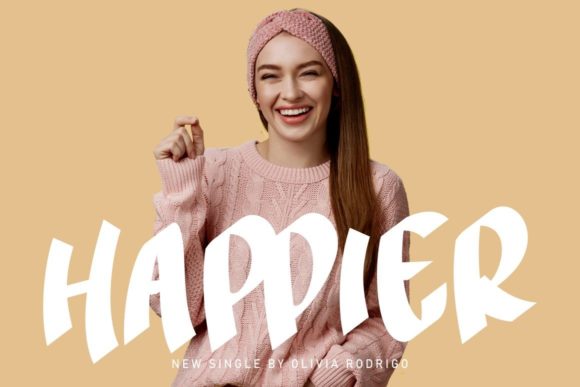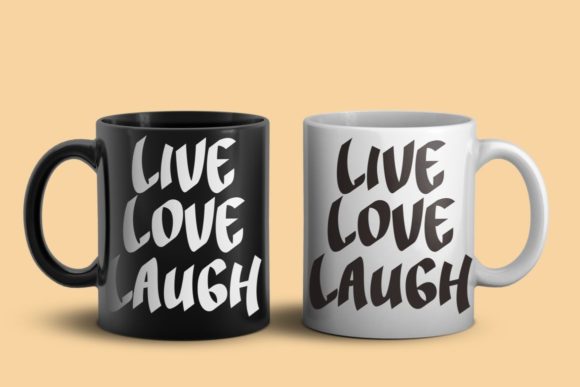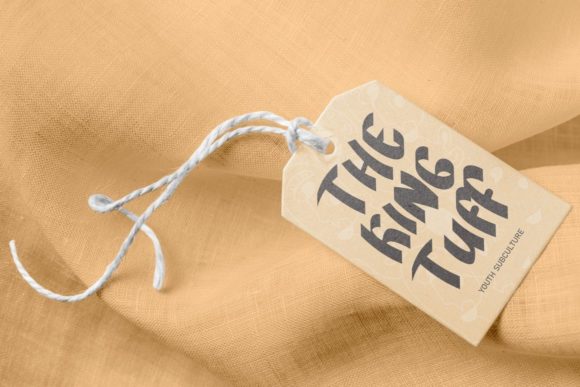
Introducing Classic Writer: The Ultimate Display Font for Creative Projects
Are you a designer, craftsperson, or creative looking for a font that can elevate your projects to the next level? Look no further than Classic Writer, a cool and trendy display font that’s perfect for a wide range of applications. With its unique blend of style and versatility, Classic Writer is a wonderful asset to add to your font library.
The Characteristics of Classic Writer
So, what makes Classic Writer so special? For starters, its classic design gives it a timeless feel that’s hard to resist. The font features clean lines, elegant curves, and a sophisticated aesthetic that’s perfect for creating visually appealing text. Whether you’re working on a logo, a poster, a website, or any other creative project, Classic Writer is sure to make a lasting impression.
Why Classic Writer is a Great Addition to Your Font Library
One of the best things about Classic Writer is its incredible versatility. This font can be used for a wide range of topics and themes, from vintage-inspired designs to modern and trendy projects. Whether you’re creating a rustic-themed wedding invitation or a sleek and modern website, Classic Writer is the perfect choice.
Another advantage of Classic Writer is its ability to add a touch of elegance and sophistication to any design. The font’s classic design ensures that it will never go out of style, making it a great investment for designers and crafters who want to stay ahead of the curve.
How to Use Classic Writer in Your Designs
So, how can you use Classic Writer in your designs? The possibilities are endless! Here are a few ideas to get you started:
- Logos and branding: Use Classic Writer to create a memorable and stylish logo that will help your brand stand out.
- Posters and flyers: Add a touch of elegance and sophistication to your posters and flyers with Classic Writer.
- Websites and blogs: Use Classic Writer to create a visually appealing website or blog that’s sure to impress your visitors.
- Social media graphics: Create eye-catching social media graphics with Classic Writer that will help you stand out in a crowded online space.
- Stationery and invitations: Use Classic Writer to create beautiful stationery and invitations that will make a lasting impression.
The Benefits of Using Classic Writer
So, what are the benefits of using Classic Writer in your designs? Here are just a few:
- Unique and eye-catching: Classic Writer is a unique and eye-catching font that’s sure to grab attention.
- Versatile: This font can be used for a wide range of topics and themes, making it a great addition to your font library.
- Elegant and sophisticated: Classic Writer adds a touch of elegance and sophistication to any design, making it perfect for creating visually appealing text.
- Timeless: The font’s classic design ensures that it will never go out of style, making it a great investment for designers and crafters.
In conclusion, Classic Writer is a cool and trendy display font that’s perfect for designers, craftspersons, and creatives looking to elevate their projects to the next level. With its unique blend of style and versatility, Classic Writer is a wonderful asset to add to your font library. Whether you’re working on a logo, a poster, a website, or any other creative project, Classic Writer is sure to make a lasting impression.